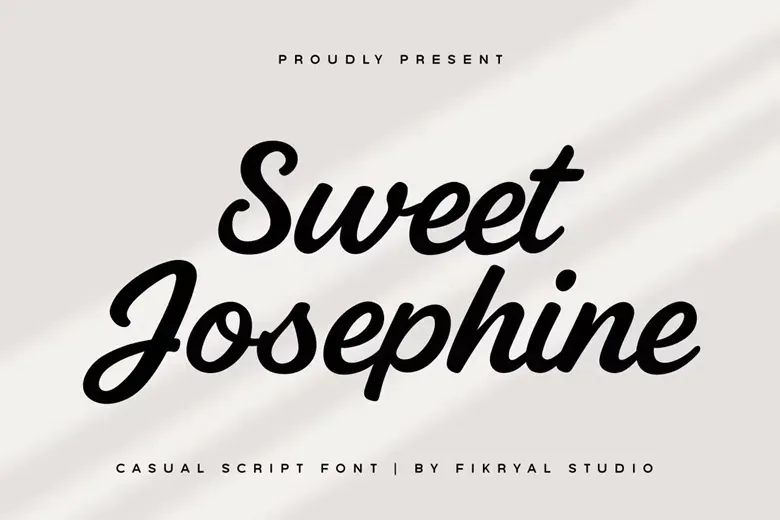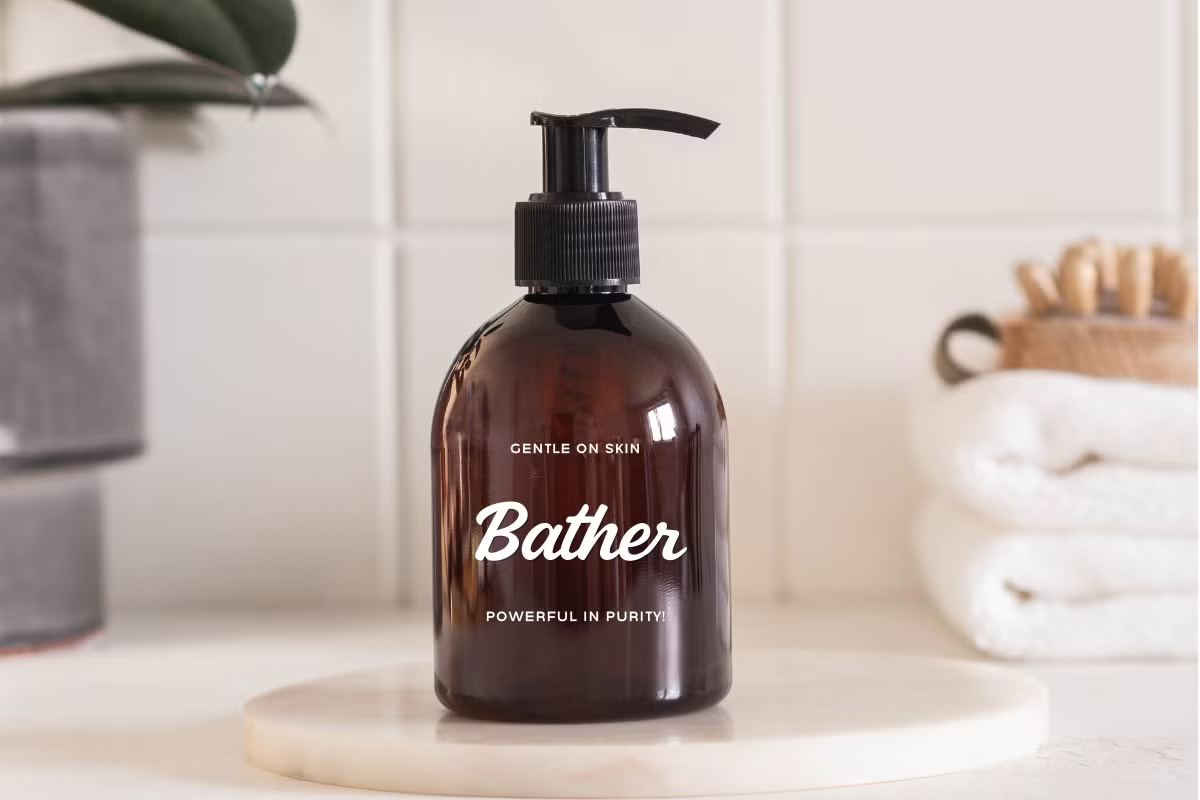
Sweet Josephine Font
Sweet Josephine is a bold and friendly script font that blends modern style with a handcrafted feel. Designed with smooth, flowing strokes, it’s perfect for branding, logos, packaging, quotes, and social media graphics.
With a variety of ligatures and alternate characters, Sweet Josephine lets you create natural-looking, unique text for a wide range of projects.
Sweet Josephine Script Font